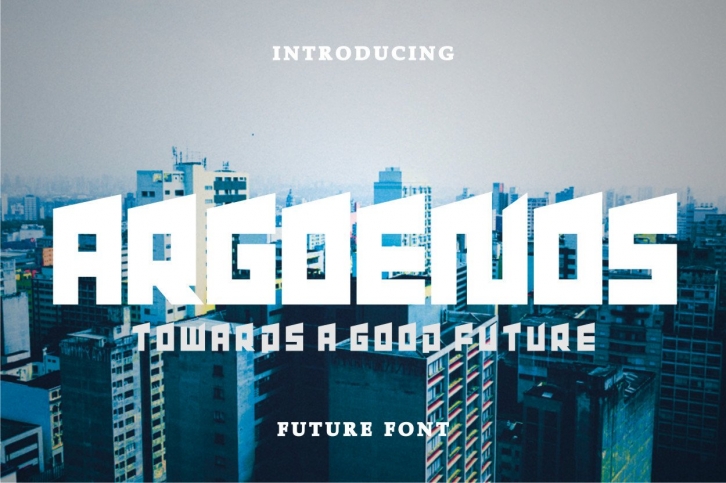
Argoenos is an assertive and thick lettered display font, that has a cool, street art vibe. This font is suitable for designs such as t-shirts, sportswear, logos, advertisements, clothing, and more.